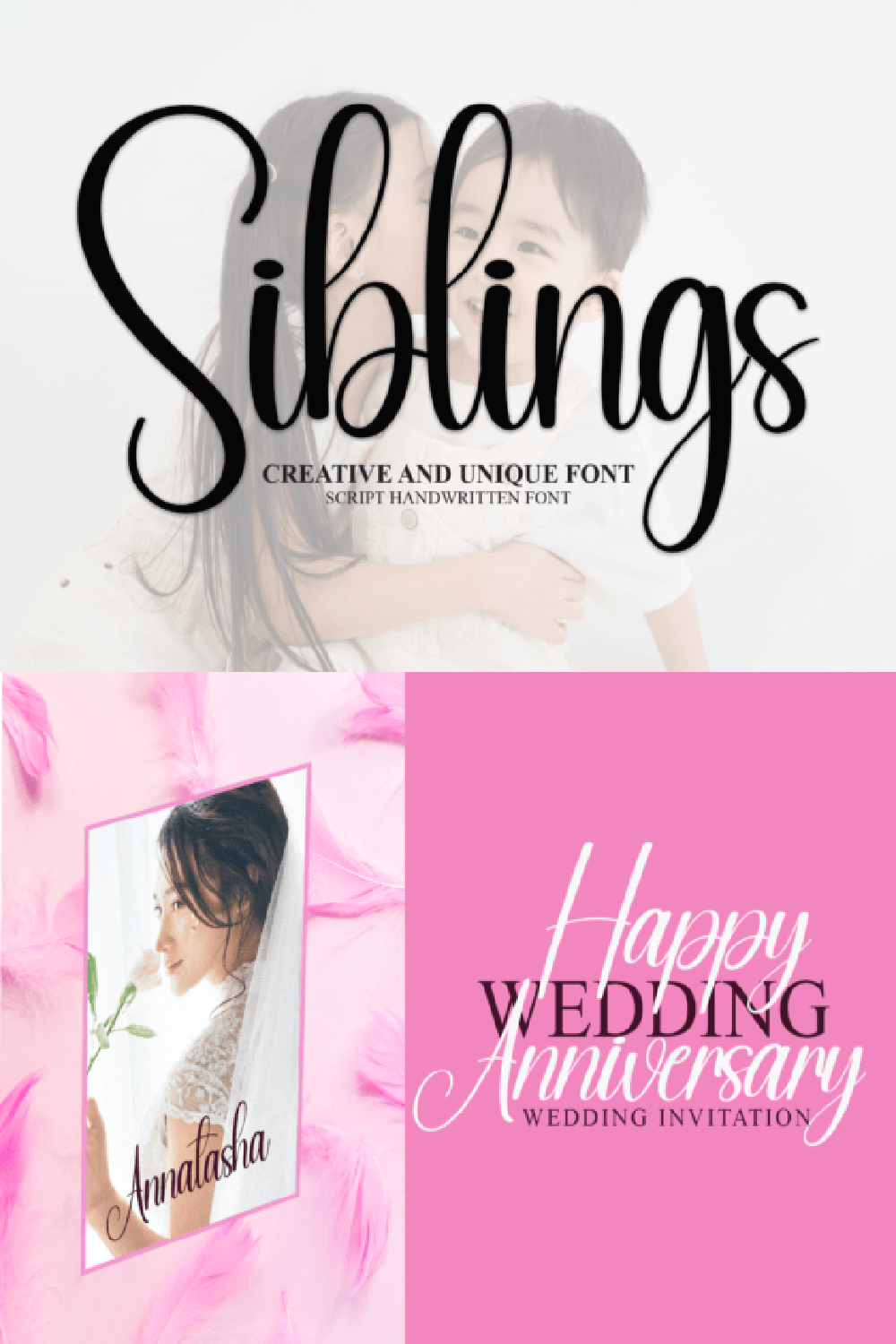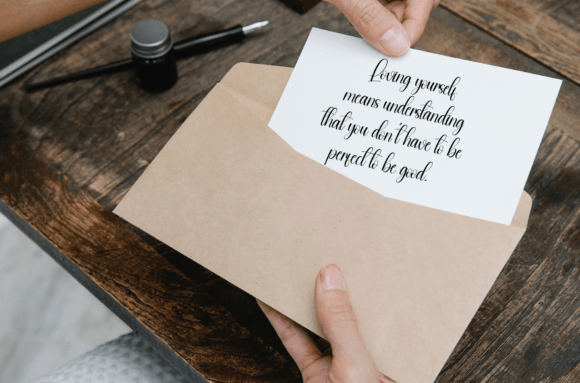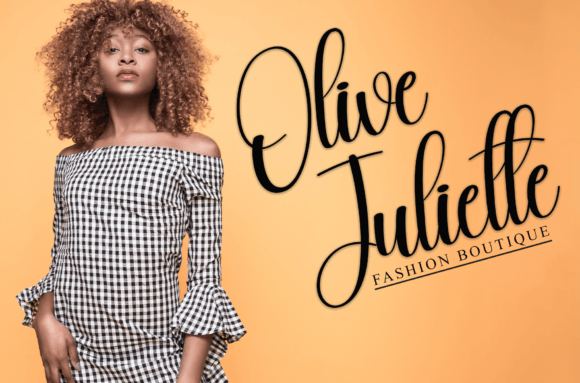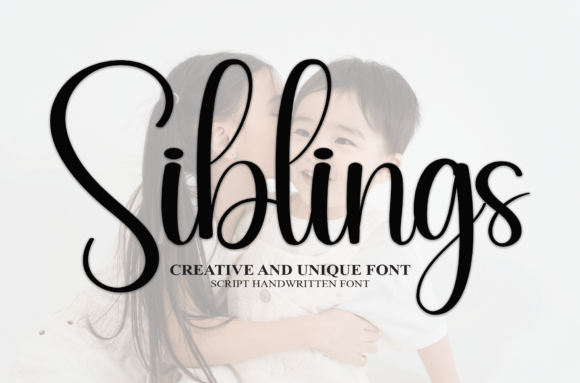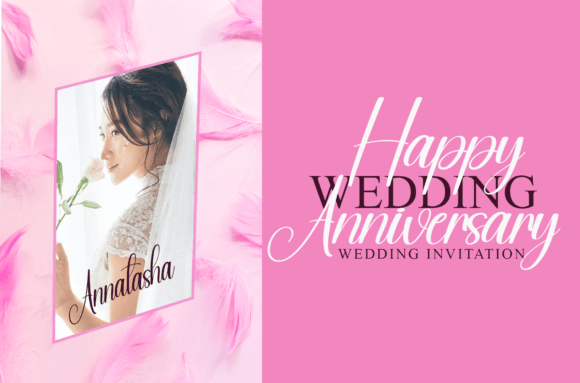
Siblings Font: Sweet Handwritten Script for Wedding Invitations
About the Siblings Font
Welcome to the world of Siblings Font, a typeface that will inspire your next great project. Siblings is a sweet and friendly handwritten font. Fresh and neat, this font is ideal for writing wedding invitations, cards, or any other design that might need a fun touch!
Siblings Font Usage Examples